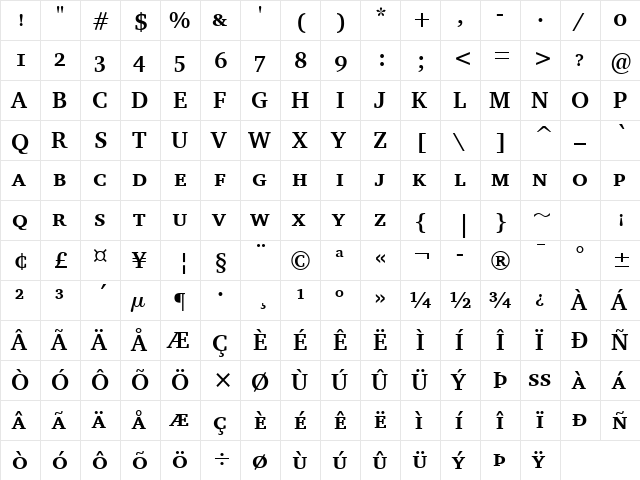
Charter Bd SC ITC TT Bold
Design Context for Charter Bd SC ITC TT Typeface
Charter Bd SC ITC TT is a composed and adaptable typeface that performs quietly and consistently across a wide range of design contexts. Its bold stroke weight gives it real presence on the page.
Pro Tip: Pair Charter Bd SC ITC TT with a font of contrasting weight or personality to build a more expressive typographic hierarchy.